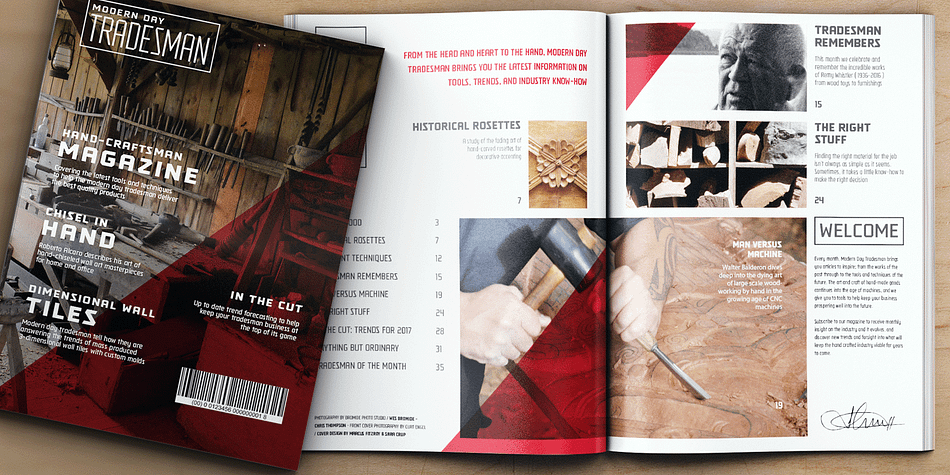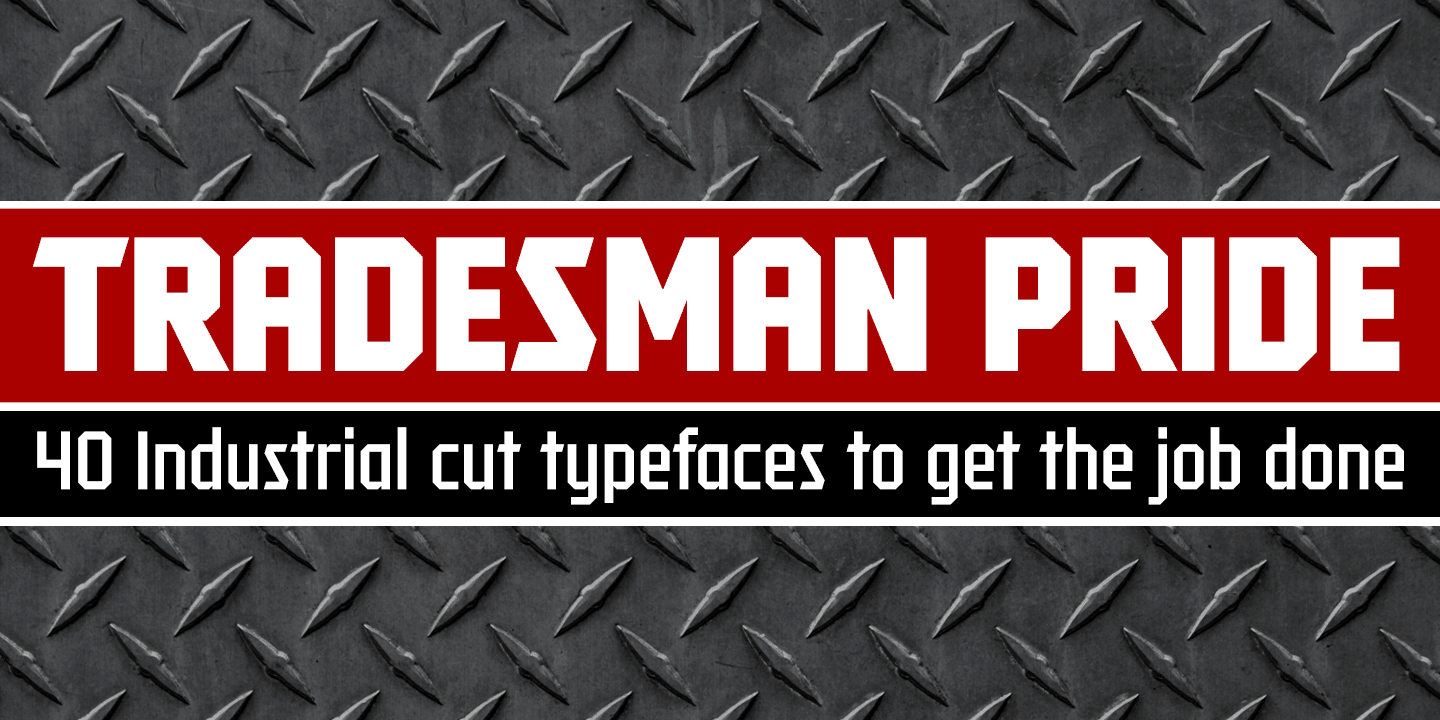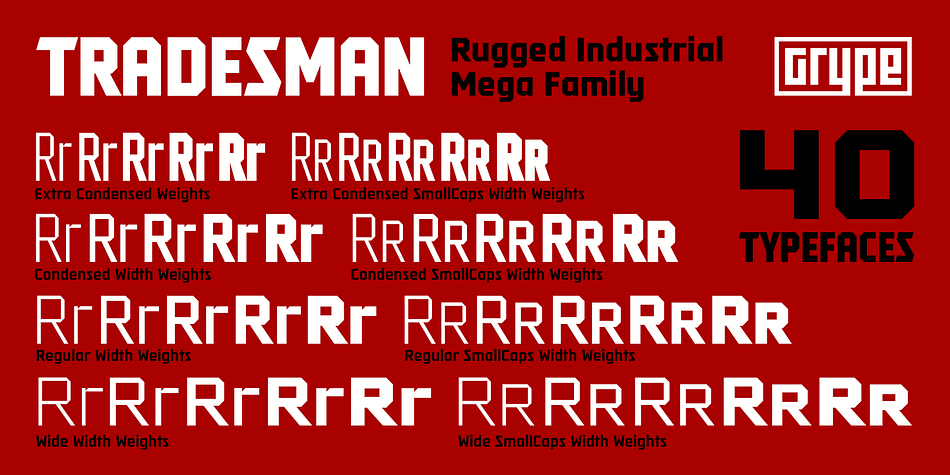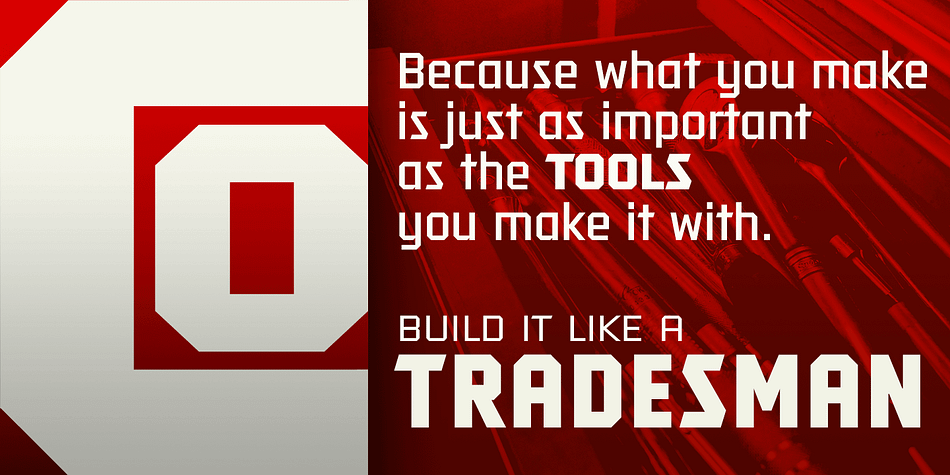
Designed by Brian J. Bonislawsky and Jim Lyles, Tradesman is a sans serif font family. This typeface has forty styles and was published by Grype Type.
Rough-hewn industrial geometric typefaces have been used and admired from early wood types through the digital age of Machine and beyond, but they have lacked an expansive enough family to become a true workhorse. The Tradesman family finds its origin of inspiration in the Craftsman tool company logo, and from there expands to type megafamily.
Tradesman celebrates the angular octagonal forms of industrial lettering, transcending its brand inspired origin to give birth to a font family that pulls on modern and historical styles. It inherited its reliably tough tone from the all capitals lettering that inspired it, and goes on to include a lowercase, small caps style, and a comprehensive range of widths and weights, creating a straightforward, uncompromising collection of typefaces that lend a solid foundation and a broad range of expression for designers.